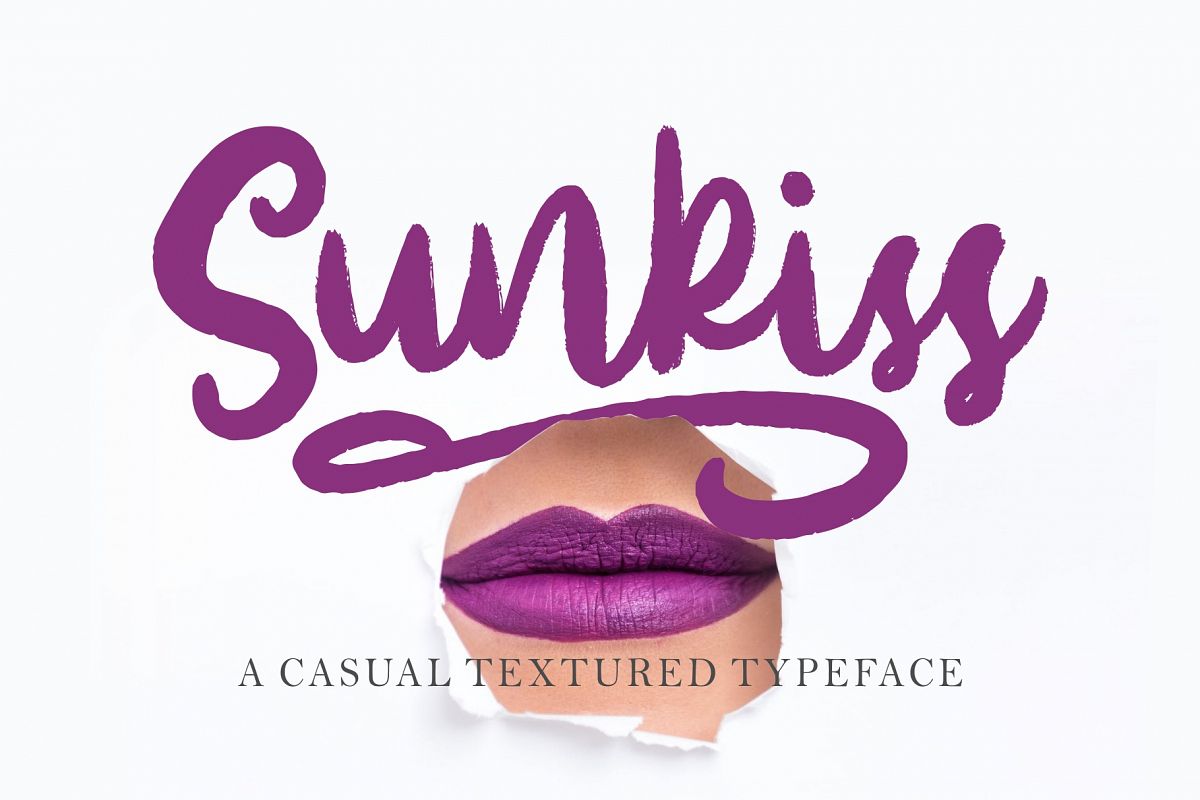
Sunkiss
Hello to SUNKISS
Sunkiss font starts from a brush stroke with a script style and also follows the times. Sunkiss is very suitable for use in various media such as; packaging, logo, label, poster, shirt design, quote of wisdom, handlettering, typography and many other media.
Supported by many glyphs that can support 22 languages (language attachments see in preview) and Opentype for additional Swash (more than 20 swashes)
In addition, Sunkiss supports the following:
• Natural brush touch
• Support 22 languages